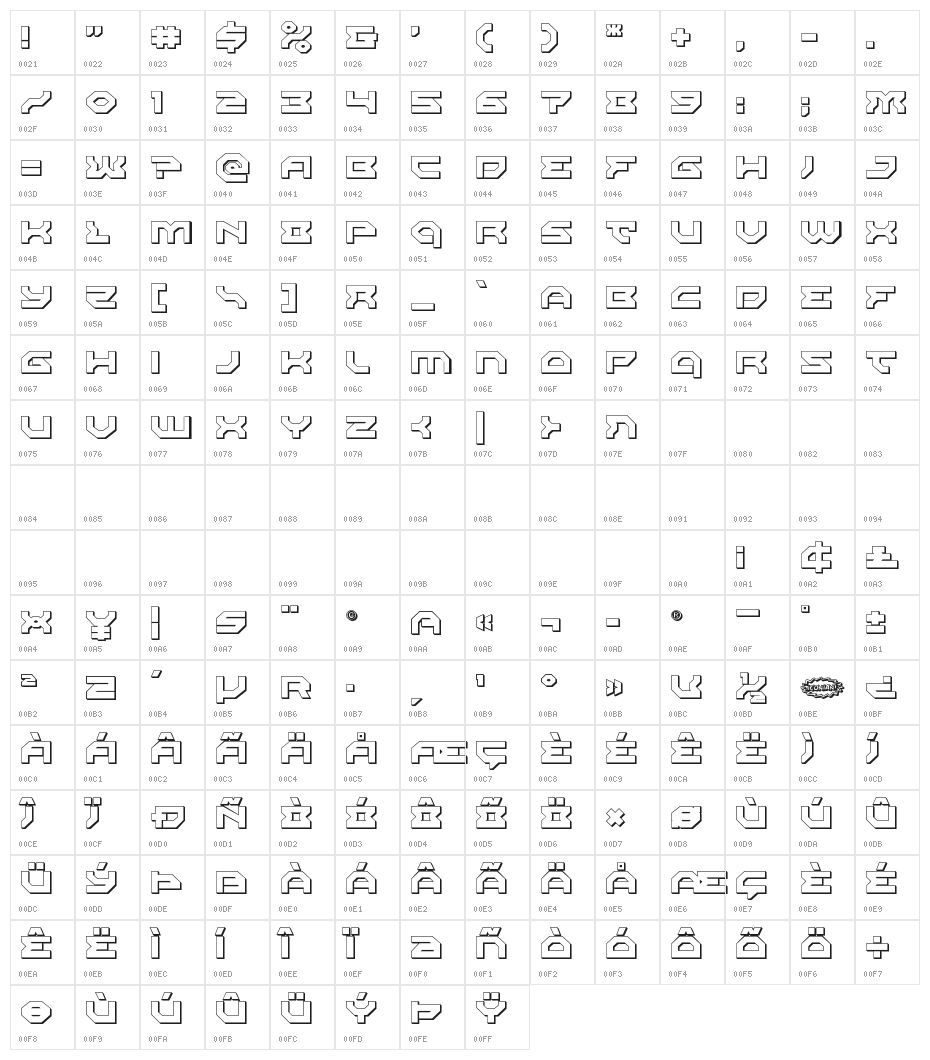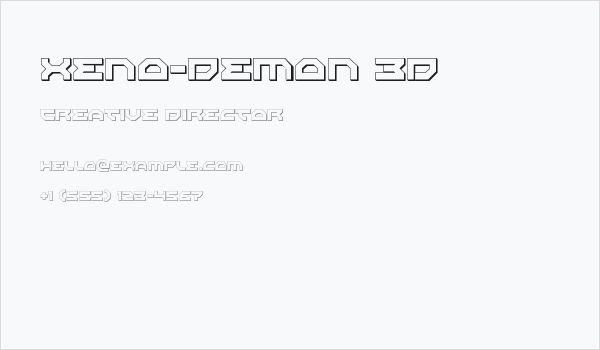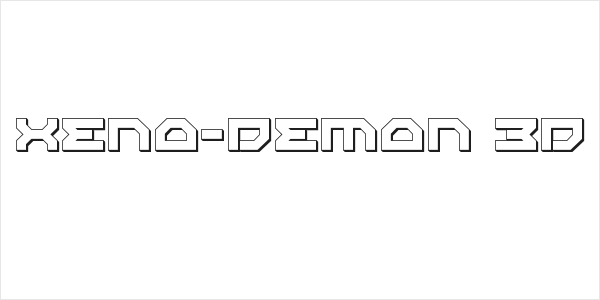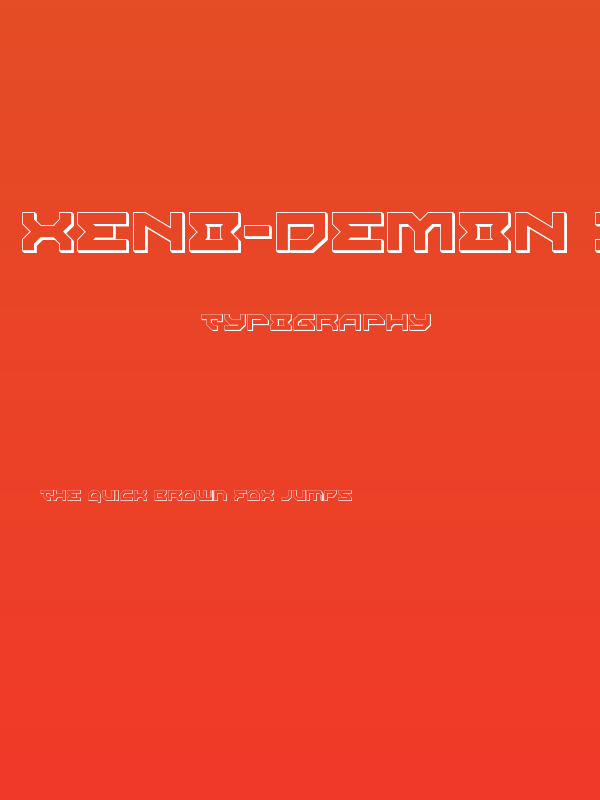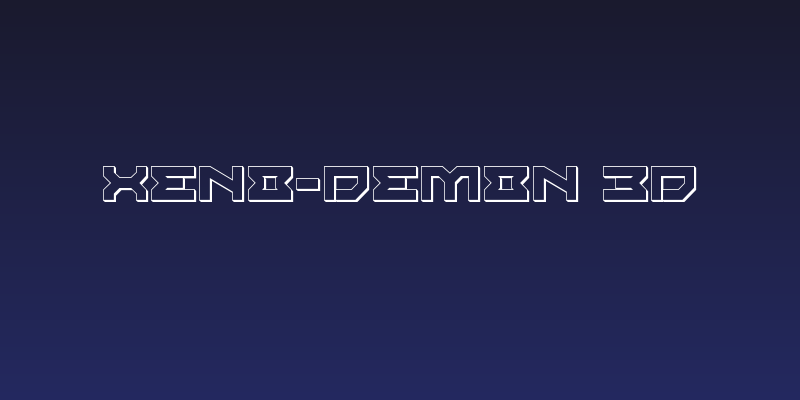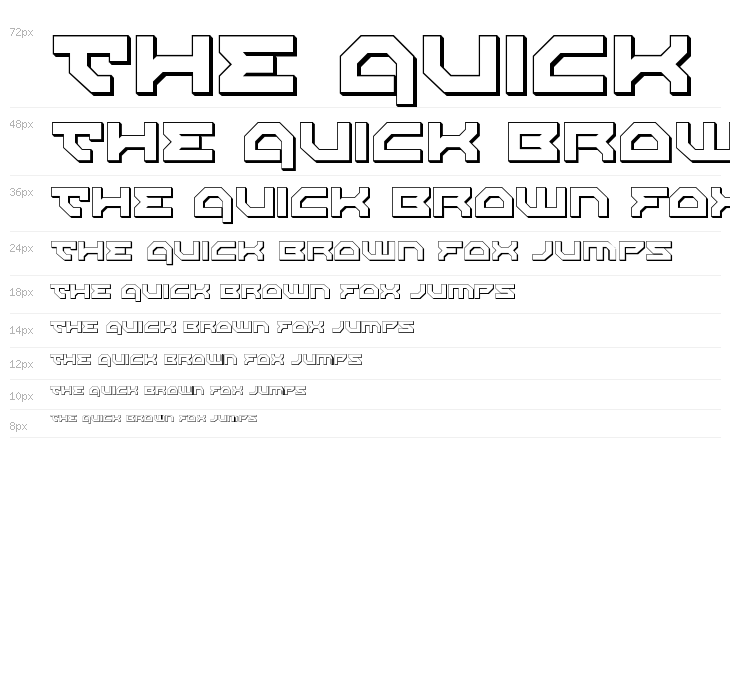
Xeno-Demon 3D Font
Xeno-Demon 3D Description
This font features a bold, futuristic design with a three-dimensional effect. The characters are constructed with thick, angular lines that create a sense of depth and dimension. The geometric shapes are consistent throughout, giving it a cohesive and modern appearance. The uppercase and lowercase letters maintain a uniform style, with sharp edges and a blocky structure. The numerals and special characters follow the same design principles, ensuring a seamless integration with the alphabet. This font is ideal for projects that require a strong, impactful visual presence.
| Proposed Projects | Ideal for sci-fi themed designs, video game titles, movie posters, and technology branding. |